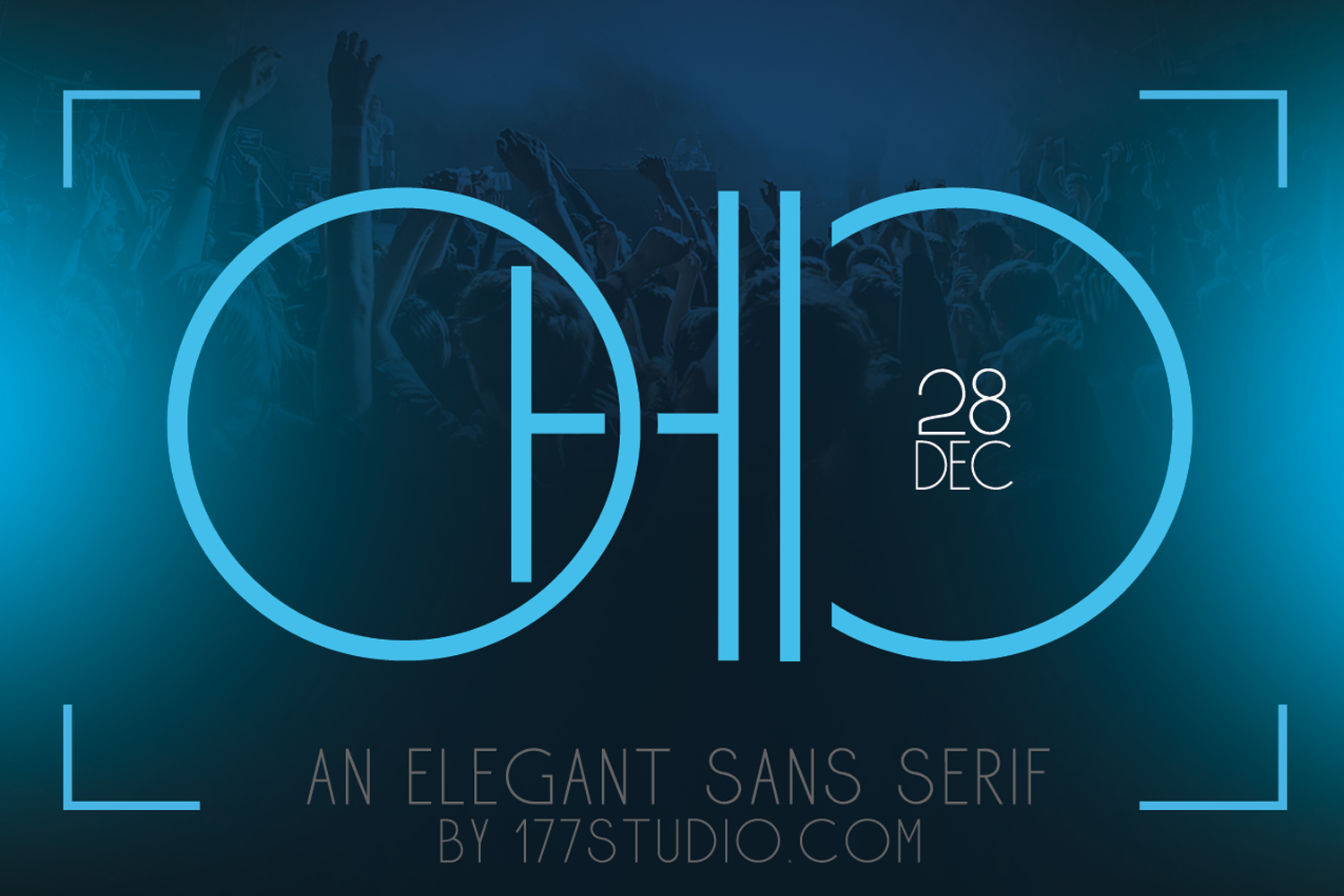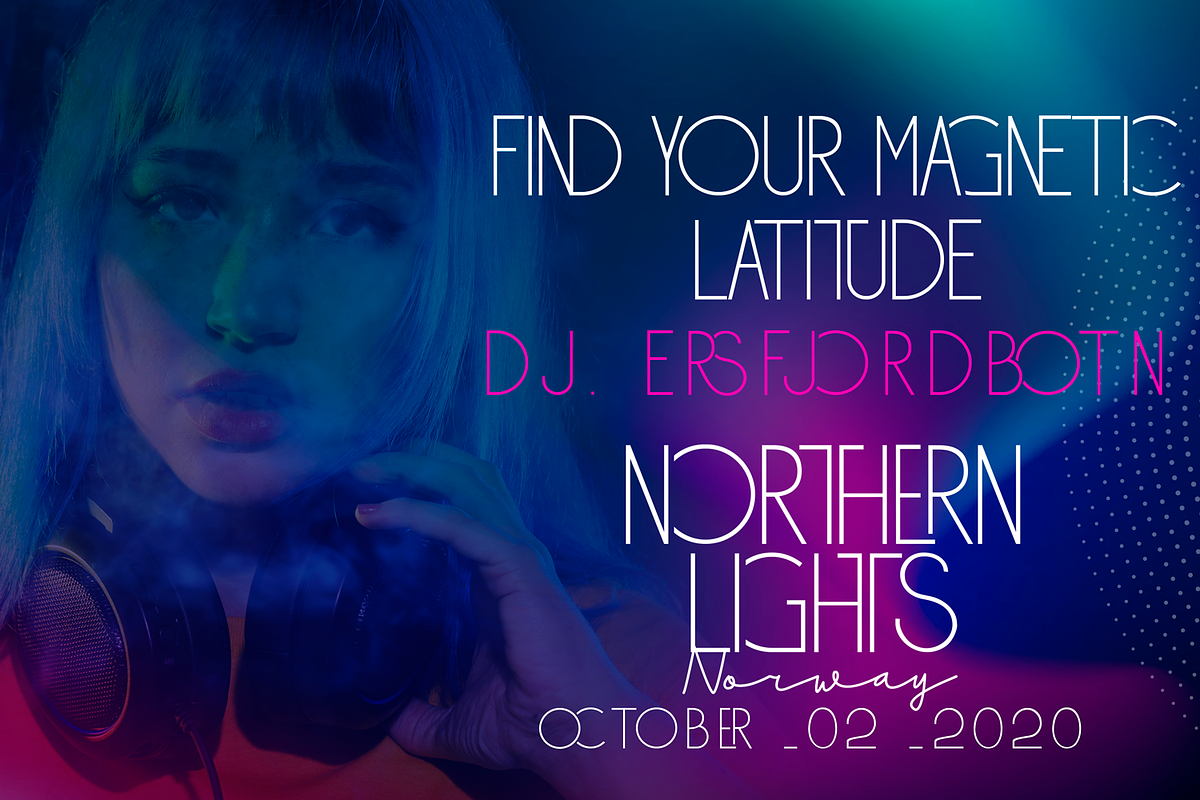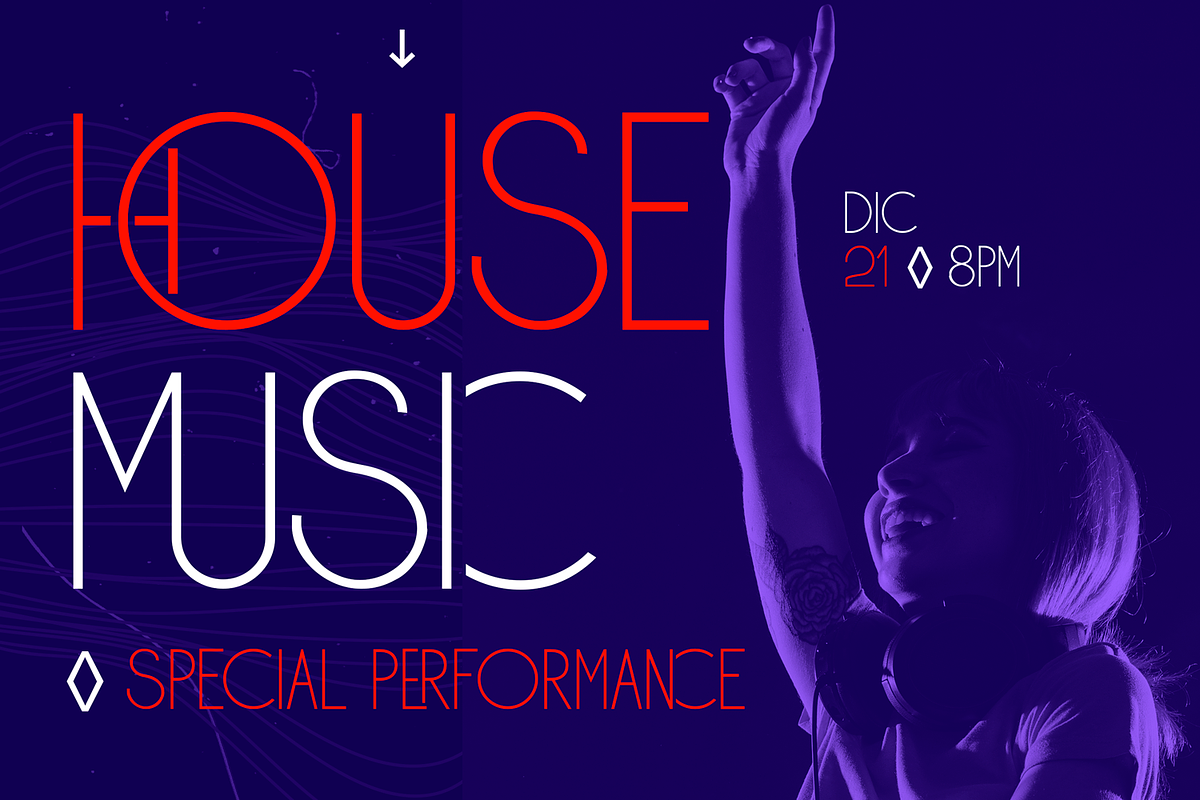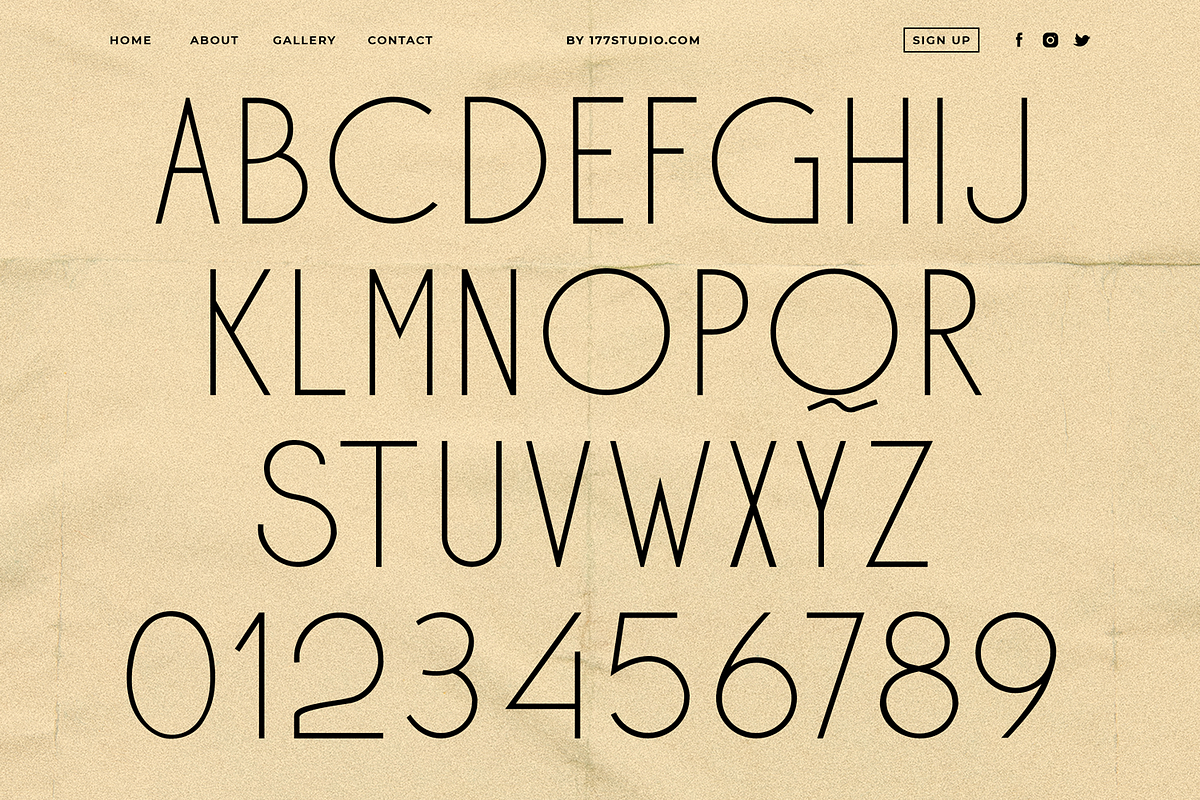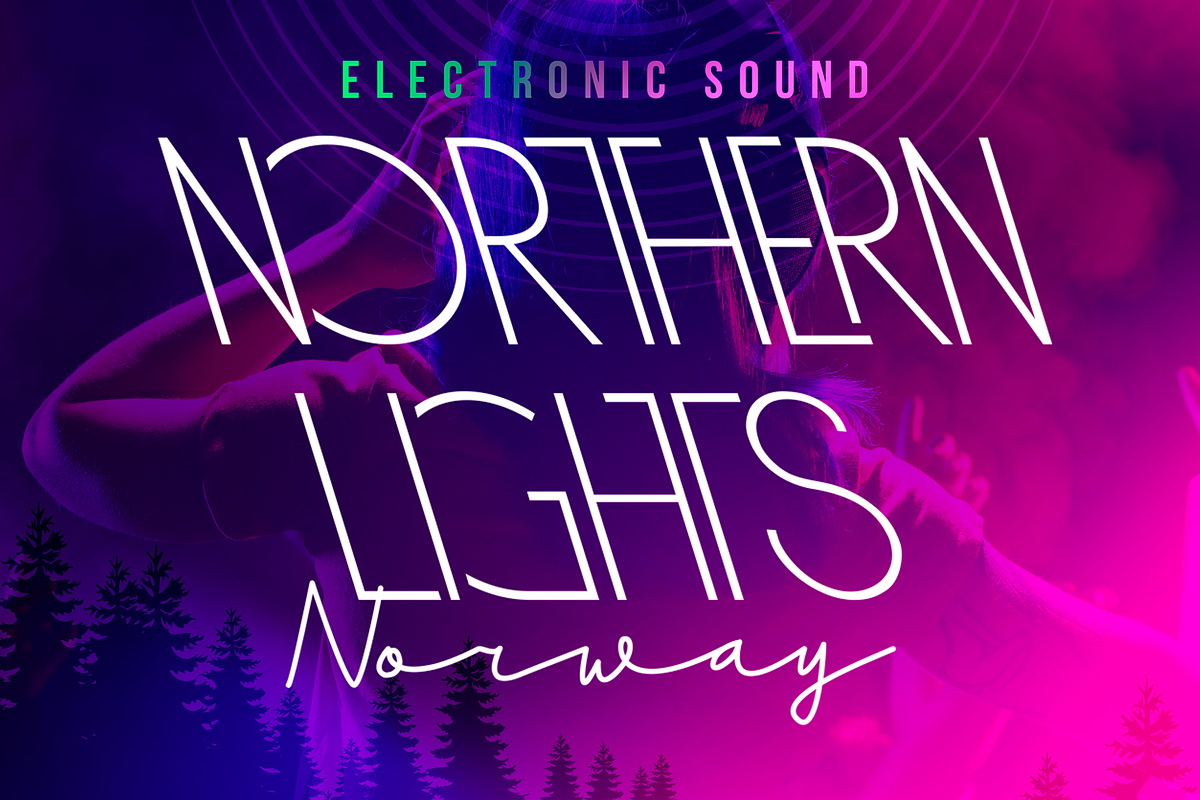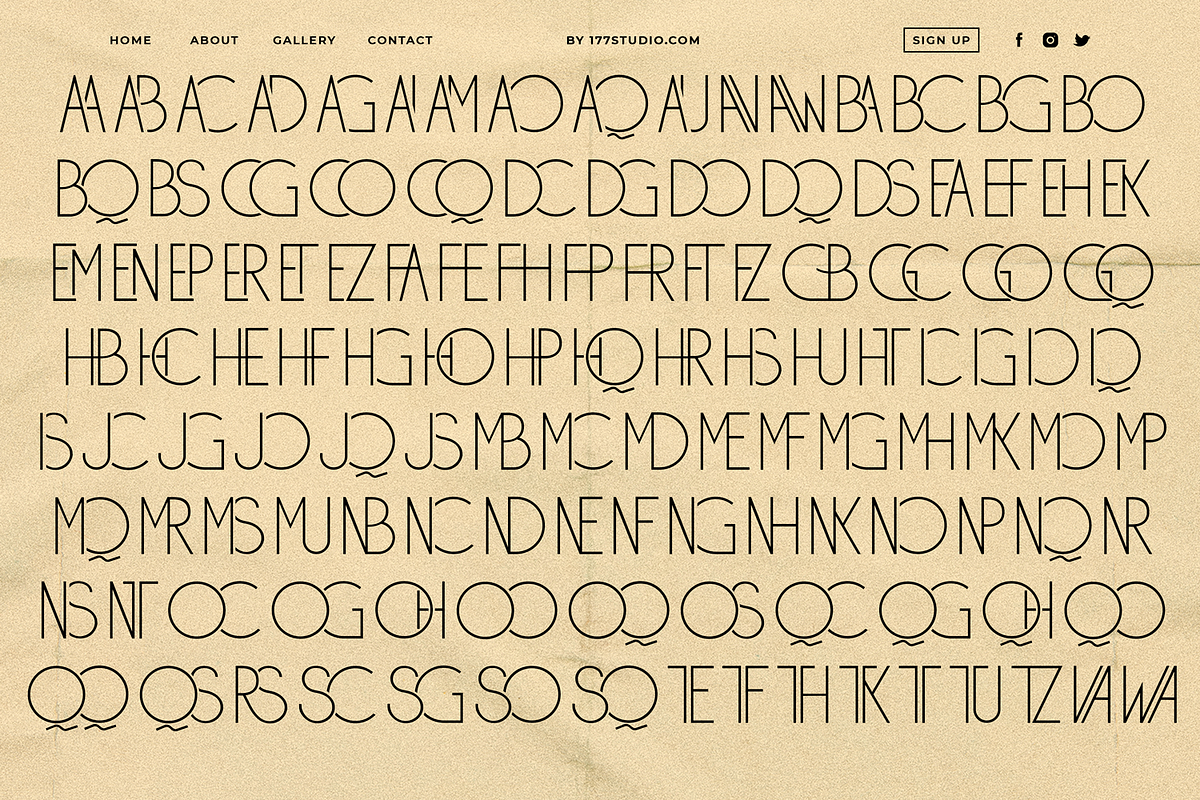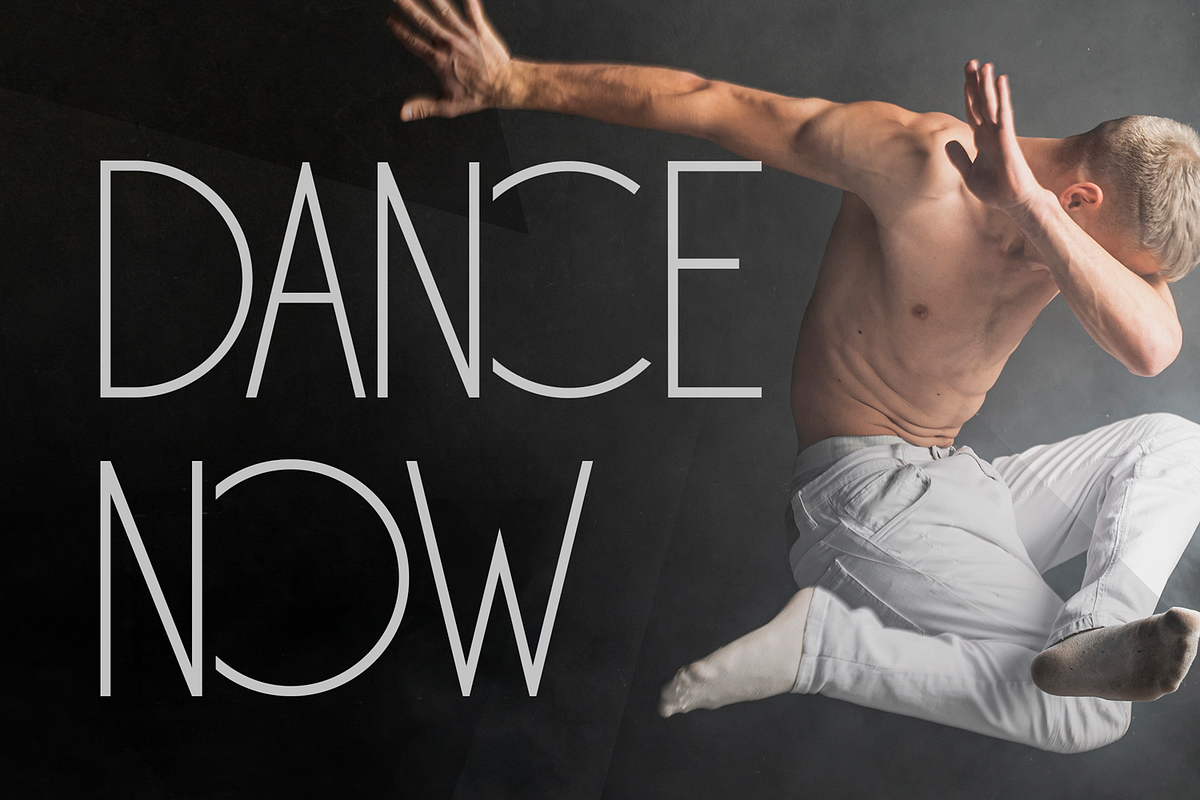
Ohio - Futuristic Sans Serif Font
Introducing Ohio Font is a Futuristic Sans font with a stylish touch inspired by the famous minimalist logo and Ohio is perfect for the purposes of designing templates, brochures, videos, advertising branding, logos and more.
To make it look more unique, here we prepared some ligatures:
AA AB AC AD AG AI AM AO AQ AU AV AW BA BC BG BO BQ BS CG CO CQ DC DG DO DQ DS EA EF EH EK EM EN EP ER ET EZ FA FE FH FP FR FT FZ GB GC GO GQ HB HC HE HF HG HO HP HQ HR HS HU HT IC IG IO IQ IS JC JG JO JQ JS MB MC MD ME MF MG MH MK MO MP MQ MR MS MU NB NC ND NE NF NG NH NK NO NP NQ NR NS NT OC OG OH OO OQ OS QC QG QH QO QQ QS RS SC SG SO SQ TE TF TH TK TT TU TZ VA WA...
Include Fancy Style on Every Uppercase and Some Lowercase
Ohio is also included full set of:
- Special Ligatures